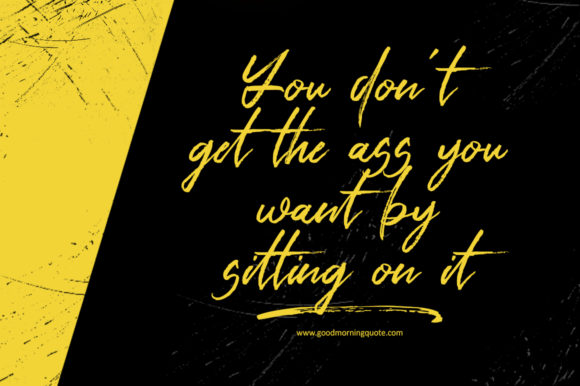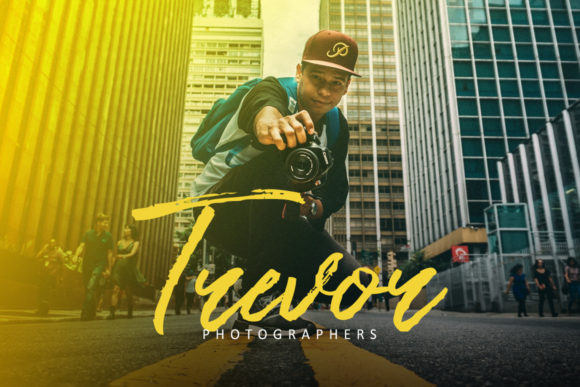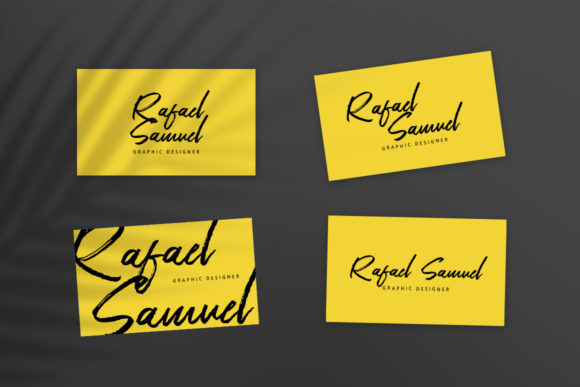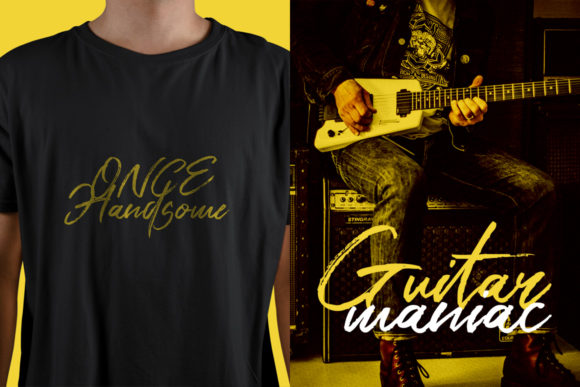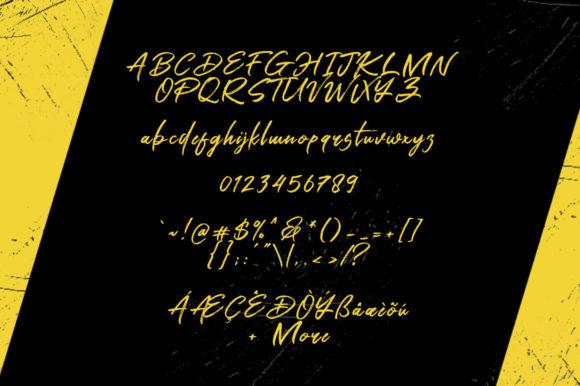
Introduction to Antam Script Font
Antam is a fresh handwritten brush font with an elegant feel.
It will add a retro touch to any design project .
Key Features of Antam Script Font